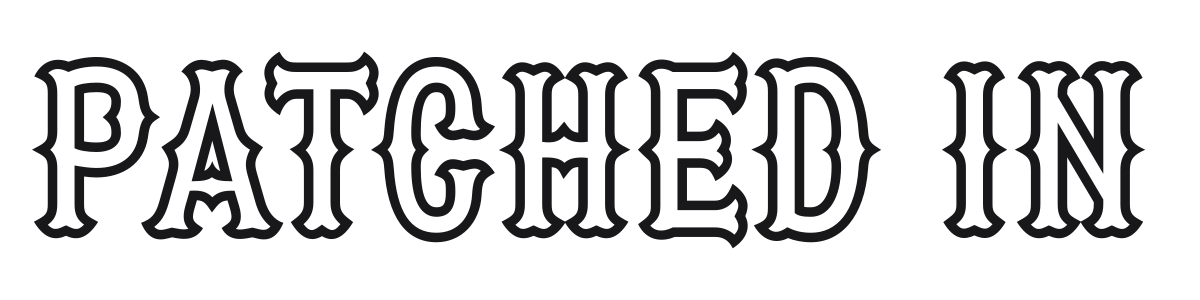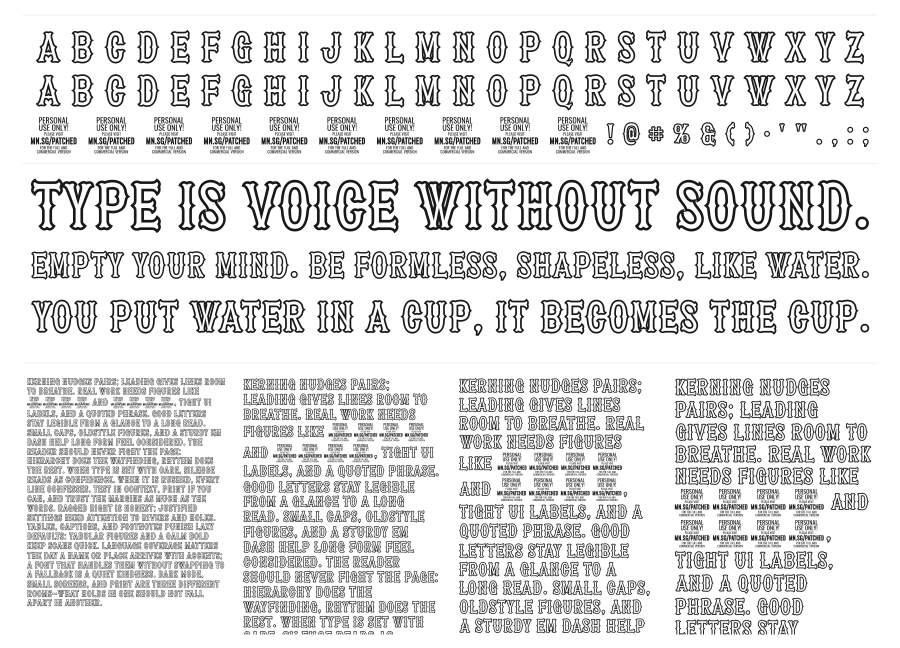
Patched In
Patched In is the outlined variation of the Patched family, a Victorian-era decorative serif by Mans Greback with deep roots in 19th-century Western signage and hand-lettering tradition. The inline outline treatment gives the heavy slab forms an extra layer of depth and craftsmanship, evoking vintage posters, saloon signage, and classic American lettering. It sits comfortably across rock, motorcycle, festival, and artisan branding wherever a sense of earned heritage matters.